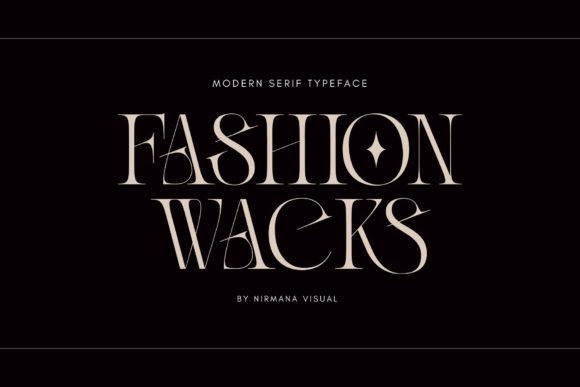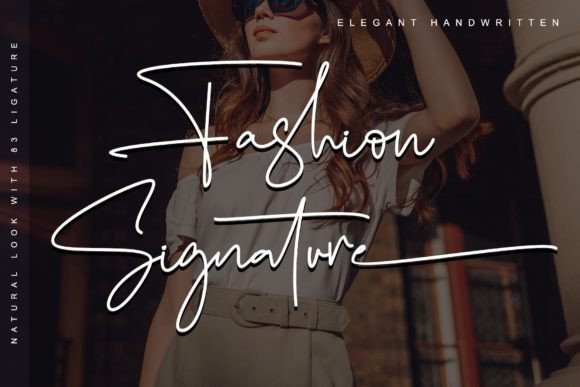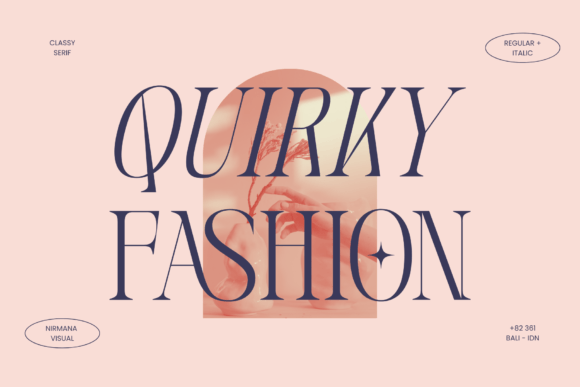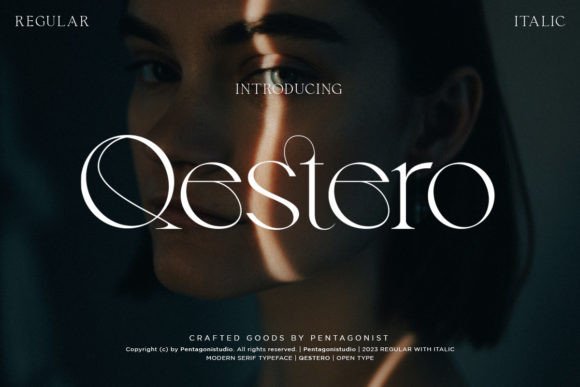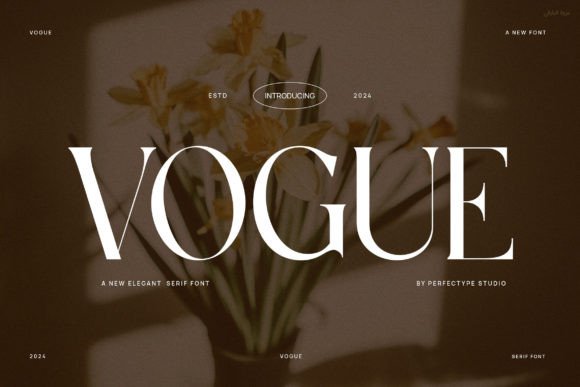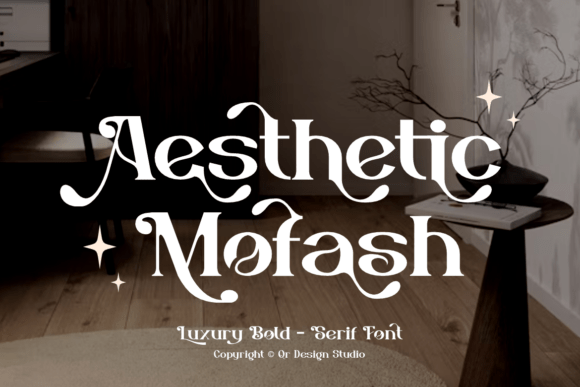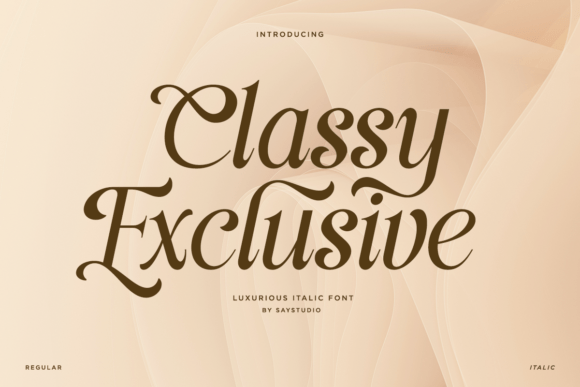
16 Fonts That Make Your Brand Look Instantly More Luxurious
Fashion Typography & Luxury Branding
From sharp editorial serifs to sophisticated fashion display fonts, these Creative Fabrica typefaces can give logos, packaging, magazines, beauty brands, and campaigns a more polished high-end feel.
Luxury typography is rarely about adding more decoration. The strongest premium typefaces usually rely on proportion, contrast, spacing, elegant curves, and a confident editorial presence. The fonts below were selected with fashion, branding, beauty, editorial design, and premium packaging in mind.
What gives a font a luxury feel?
A premium-looking brand does not necessarily need an ornate typeface. In fashion and beauty branding, luxury often comes from restraint: elegant proportions, dramatic thick-and-thin contrast, carefully shaped serifs, generous spacing, and typography that feels intentional.
That is why this list focuses heavily on editorial and fashion-oriented styles. These fonts can work especially well for wordmarks, magazine covers, cosmetic packaging, jewelry branding, restaurant identities, boutique businesses, and premium social media graphics.
01 · Fashion Editorial
Vogue
Vogue is one of the strongest choices in this collection if you want an immediately recognizable fashion-editorial mood. Its elegant serif construction gives headlines and brand names a polished magazine feel without becoming overly decorative.
It is particularly effective for fashion identities, editorial headlines, beauty campaigns, posters, and sophisticated wordmarks.
02 · Modern Luxury
Qestero
Qestero is the reference point for this entire collection. Its bold serif character combines classic typography with a contemporary fashion attitude, making it especially suitable for brands that want to look premium without feeling traditional.
The strong shapes make it particularly effective at larger sizes, where the contrast and proportions can become part of the brand identity itself.
03 · Bold Serif
Fashion Wacks
Fashion Wacks takes the classic serif formula and gives it a stronger, more confident presence. It feels elegant but substantial, making it useful when a luxury brand needs typography with more visual weight.
The font works especially well for logos, labels, packaging, and fashion-oriented headlines.
04 · Fashion Branding
Fashion Signature
Fashion Signature brings a more expressive personality to luxury branding. Rather than relying only on traditional serif elegance, it adds a distinctive signature-like quality that can make a brand identity feel more personal and memorable.
05 · Glamorous Display
Aesthetic Mofash
Aesthetic Mofash leans into the glamorous side of fashion typography. Its high-contrast strokes, decorative curves, and display-oriented proportions make it particularly striking when used at large sizes.
This is the kind of font that can turn a short brand name or headline into the visual centerpiece of a design.
06 · Contemporary Fashion
Quirky Fashion
Quirky Fashion gives classic serif typography a more contemporary personality. It is a useful choice when a brand needs to feel sophisticated while still having a distinctive visual voice.
07 · Editorial
Runway
Runway is built around the visual language of fashion publishing. Its elegant serif forms can instantly make short headlines, names, and editorial compositions feel more polished.
08 · Delicate Serif
Malito Fashion
Malito Fashion takes a lighter approach to luxury. Its thin lettering, smooth curves, and delicate serif details create the kind of refined look that works naturally with fashion and editorial imagery.
09 · High-End Serif
Voguer
Voguer has the kind of polished serif presence that works particularly well when typography needs to share the spotlight with photography. Keep the composition simple and let the letterforms create the luxury effect.
10 · Sophisticated Display
About Taste
About Taste has a more expressive editorial personality. It is a good option when you want your typography to feel curated and fashionable rather than purely minimal.
11 · Editorial Luxury
The Letter Editorial
The Letter Editorial is designed around the visual language of premium editorial design. Its refined serif structure makes it easy to imagine on fashion covers, luxury packaging, and high-end brand identities.
12 · Classic Chic
Classy Exclusive
Classy Exclusive takes a more traditional approach to sophisticated typography. Its polished serif character is especially useful for brands that want to communicate elegance without an overly dramatic display style.
13 · Couture Display
High Fashion
High Fashion is the most direct expression of the couture aesthetic in this collection. Its display-oriented serif forms are better suited to short statements and large headlines than long paragraphs.